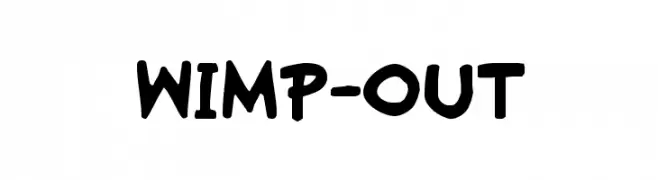
( Fonts by Bright Ideas )
A flowing, elegant script font with ornate swashes and flourishes.
( Fonts by Casady & Greene )
A lively and elegant script font with fluid, connected letterforms.
( Font by kingthingsfonts.co.uk )
A modern serif font with sharp serifs and clean lines, offering elegance and readability.
( Fonts by Hideki Katayama - com4t-fff.seesaa.net )
A delicate and elegant script font with flowing, interconnected letters and thin strokes.
( Fonts by ShyFonts )
A futuristic italic font with rounded characters and a sleek, modern design.
A bold, futuristic italic font with a 3D outlined style.
A playful, bold, and cartoonish font with rounded edges and quirky character shapes.
A bold, italicized handwritten font with a playful and dynamic style.
A playful, bold, and condensed hand-drawn font with a friendly appearance.
( Fonts by Paul Lloyd )
A bold and artistic font with a blend of sharp and smooth lines.